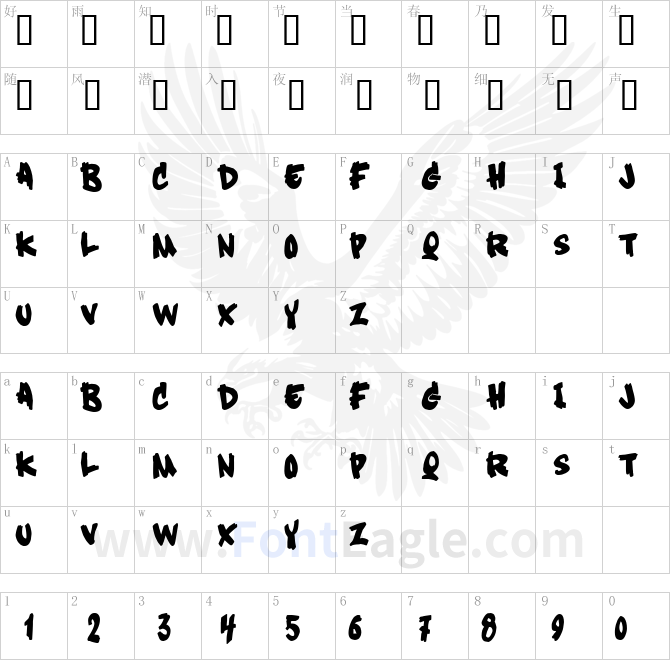
- Font name:Soft Sugar [plain]
- Font Subfamily ID:Soft Sugar [plain]
- Font Full Name:Soft Sugar [plain]
Soft-Sugar-[plain] is a great font, widely used in graphic design, single-page menu design, poster design and other fields, and is deeply loved by designers.Soft-Sugar-[plain] download.![Soft-Sugar-[plain]](https://file.fonteagle.com/upload/font/image/20241219/1734539296798305.png)